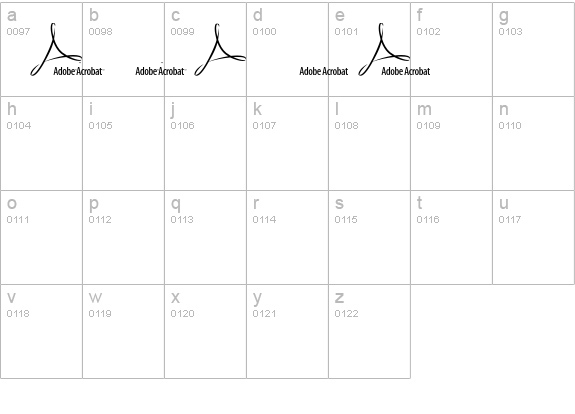
Adobe Corporate ID Acrobat Font Details
The Adobe Corporate ID Acrobat font is a modern and sophisticated typeface designed for corporate branding and professional documents. With its clean lines and elegant style, this font exudes professionalism and credibility. The best part is that it is available for free download at FontsMarket.com, making it easily accessible for anyone looking to enhance their branding or document design. Whether you're creating reports, presentations, or marketing materials, the Adobe Corporate ID Acrobat font is sure to elevate your content and leave a lasting impression on your audience. Download it today and take your design projects to the next level with this sleek and versatile font.